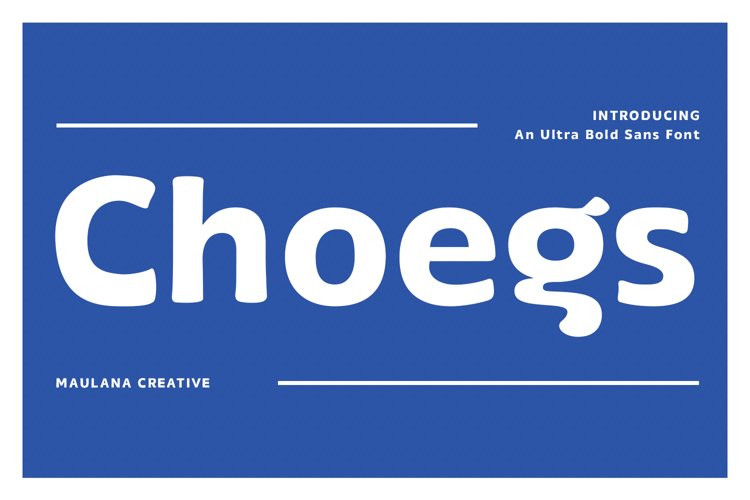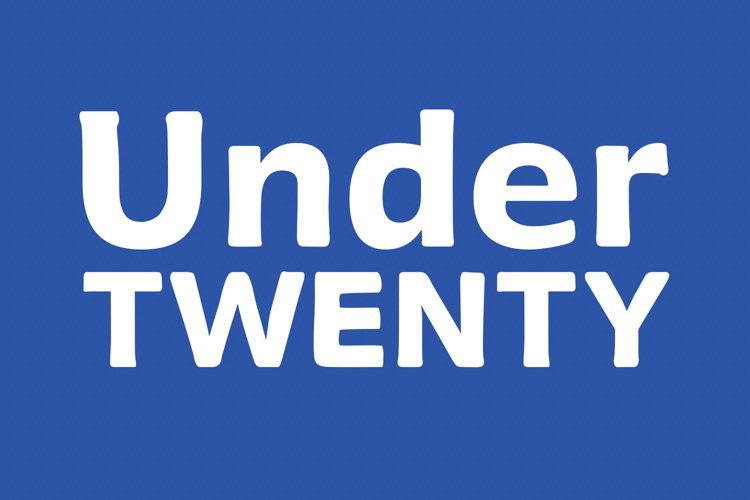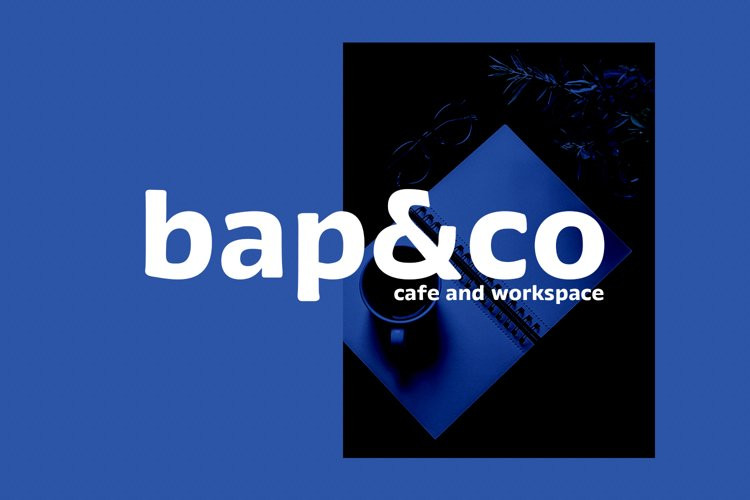
Choegs Font
Choegs FontChoegs is a distressed sans font. With bold stroke, fun character with a bit of ligatures and alternates. To give you an extra creative work. Choegs font support multilingual more than 100+ language. This font is good for logo design, Social media, Movie Titles, Books Titles, a short text even a long text letter and good for your secondary text font with sans or serif. Make a stunning work with Choegs font.